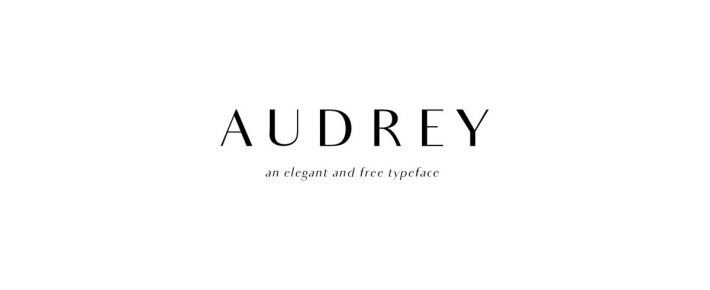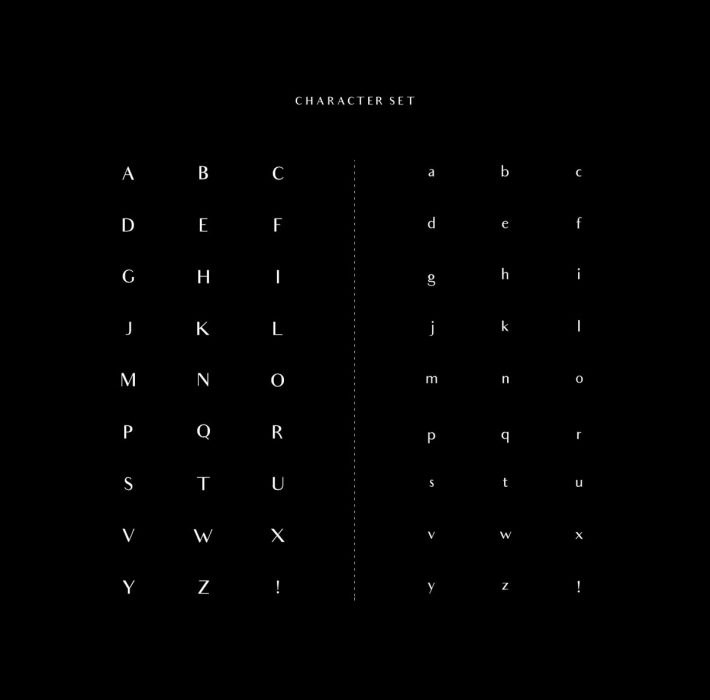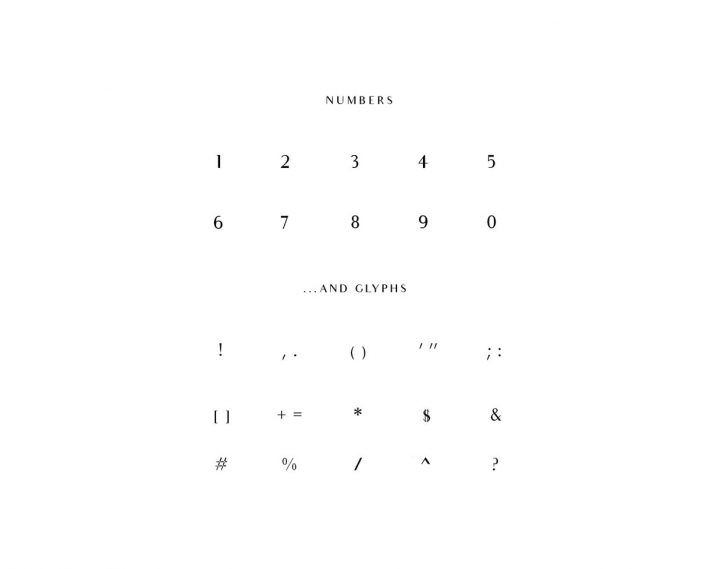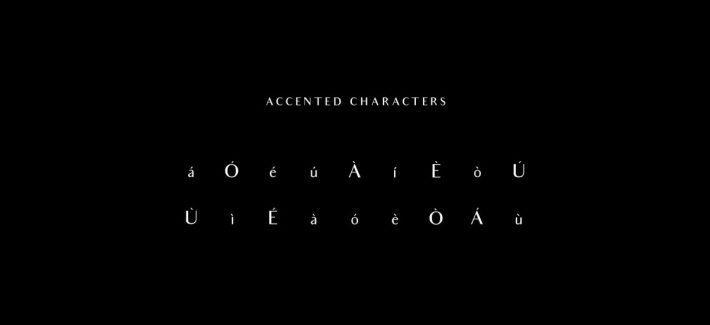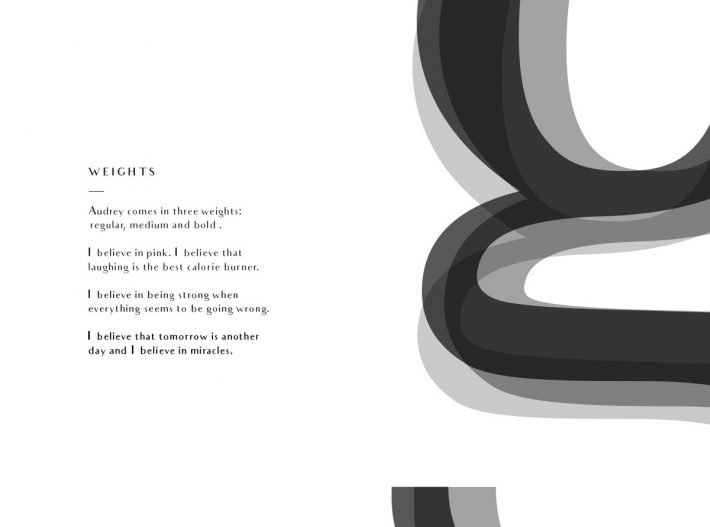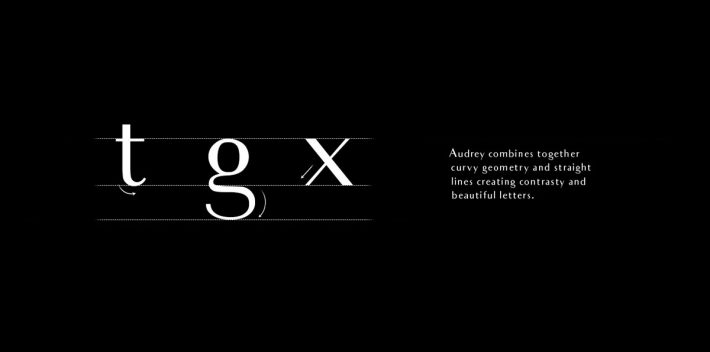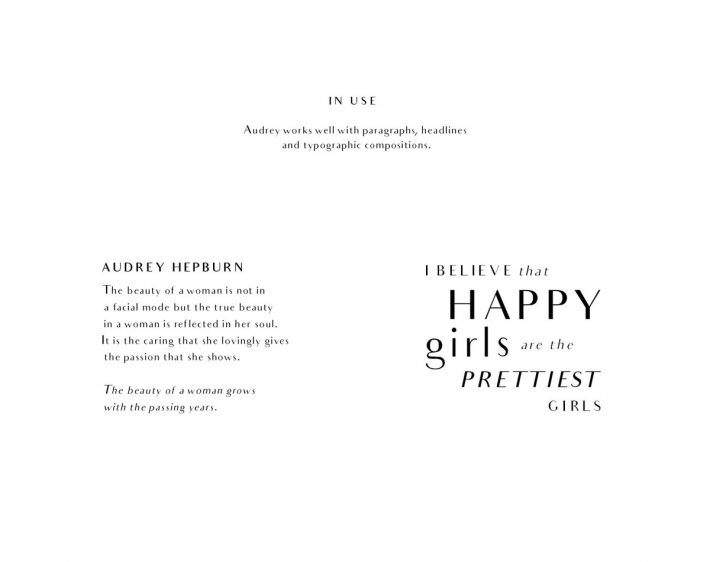
Audrey Font, Elegant and Free Typeface
Audrey font is new, elegant and free typeface created by Cristina Pagnotta. It has three weights, regular, medium and bold. And two variations, regular and oblique one.
This stylish and modern typeface is very impressive on art, fashion magazine, design book cover, logotype and garment branding as well. Very cool, awesome and elegant.
Audrey Font
Audrey Font Typeface
Audrey Font Numbers and Glyphs
Accented Characters Audrey Font
Audrey Font Weights